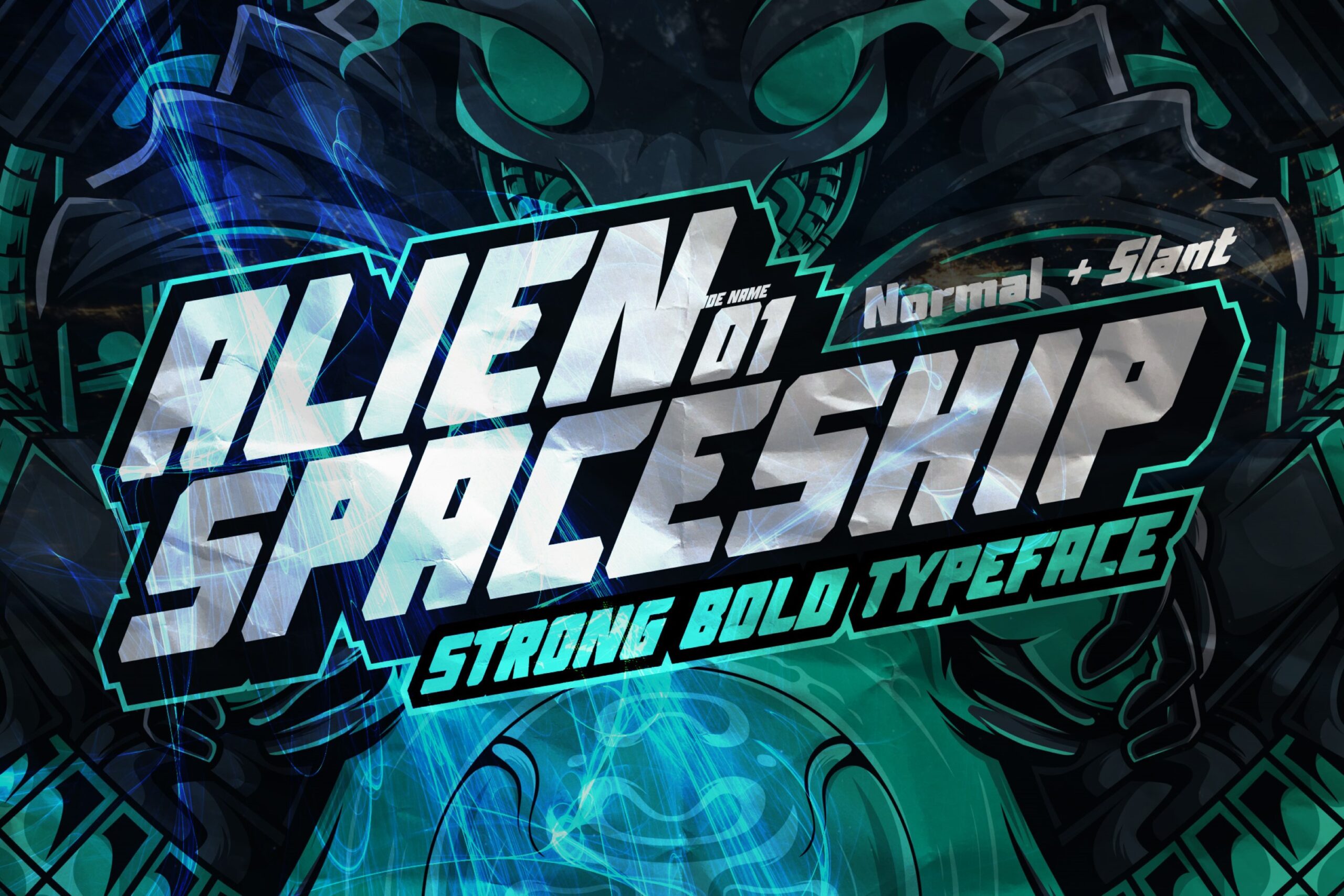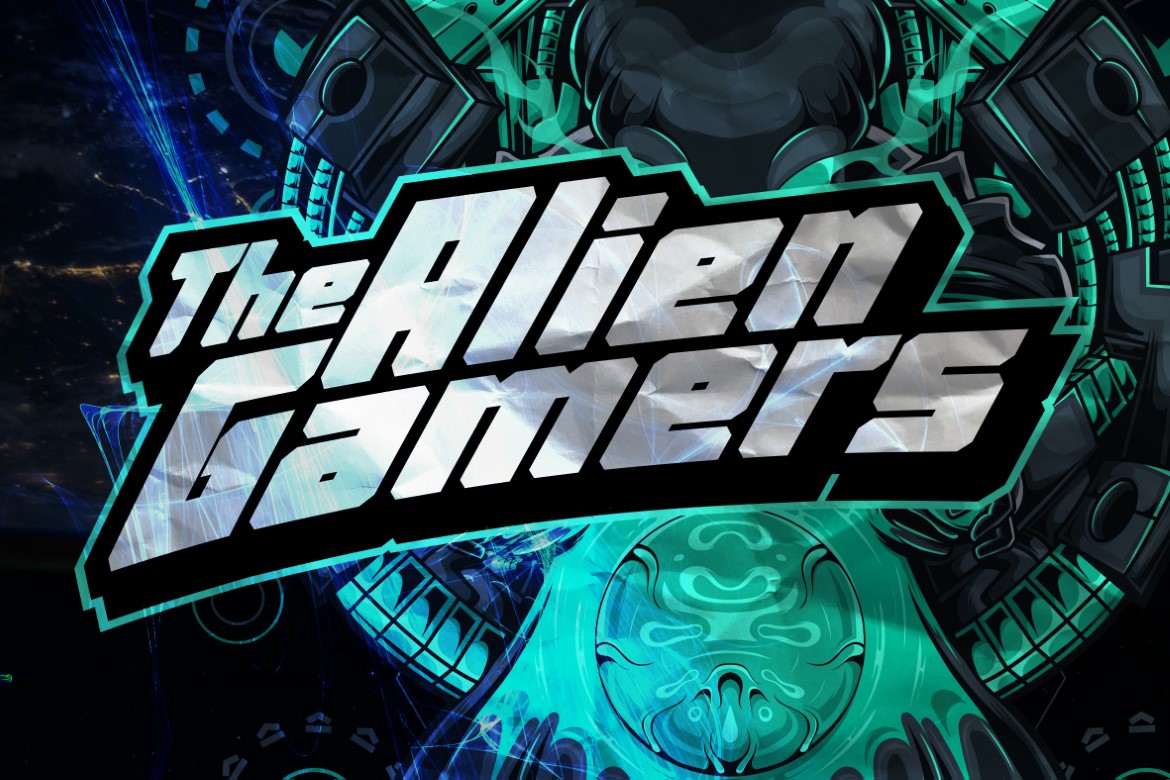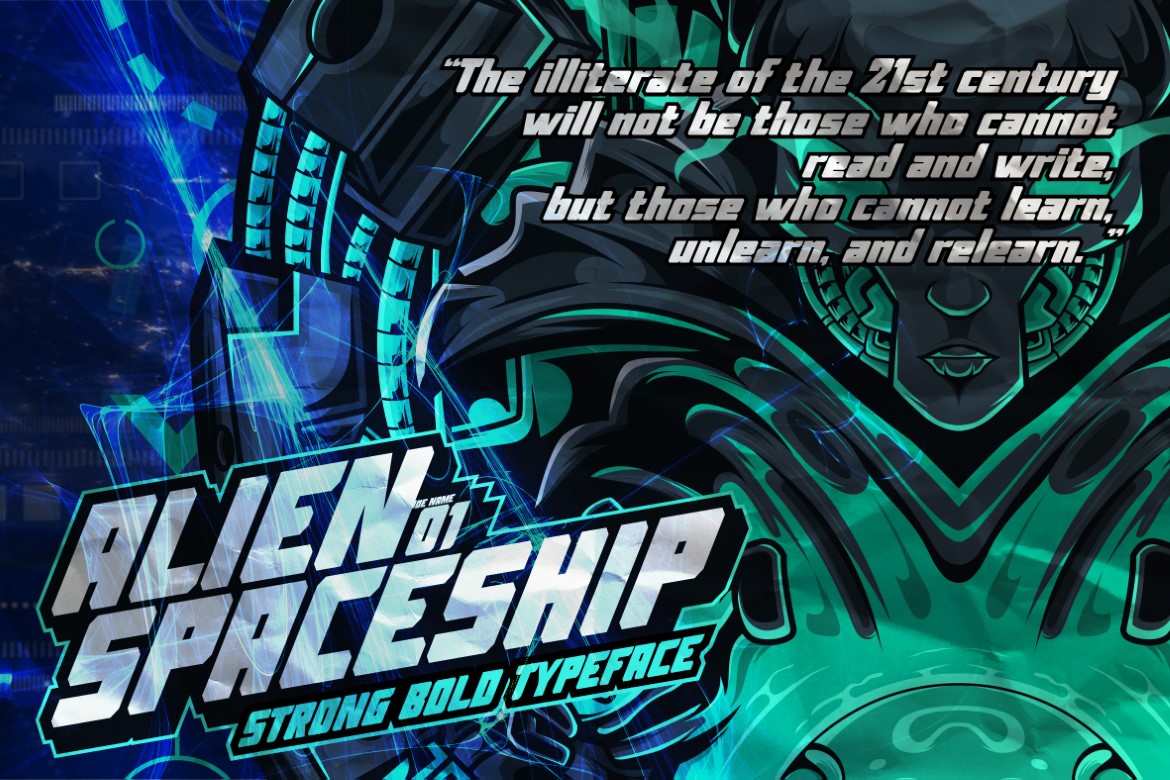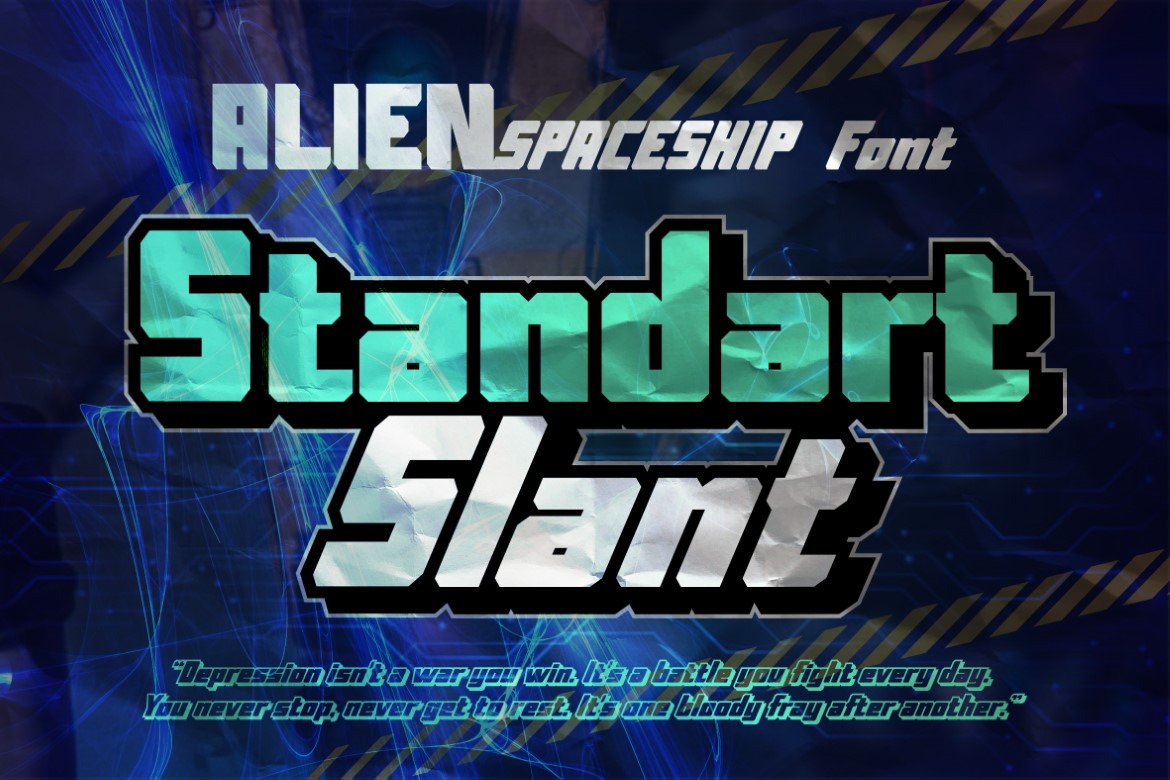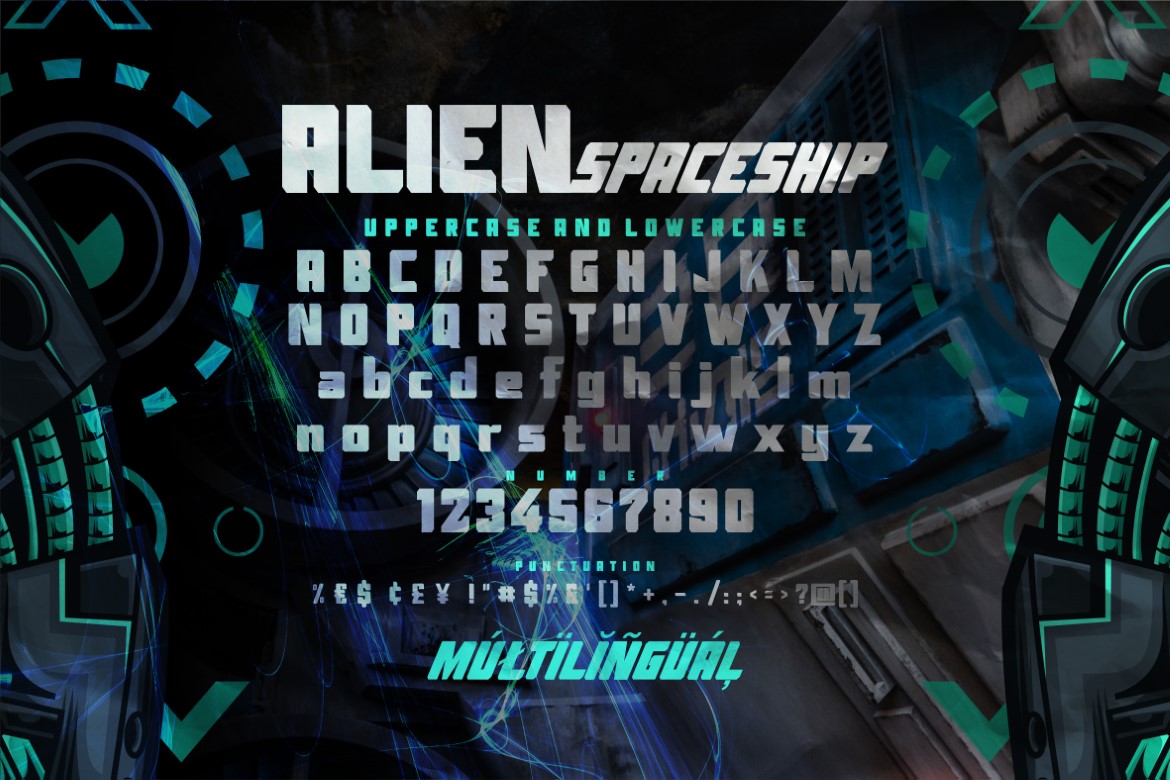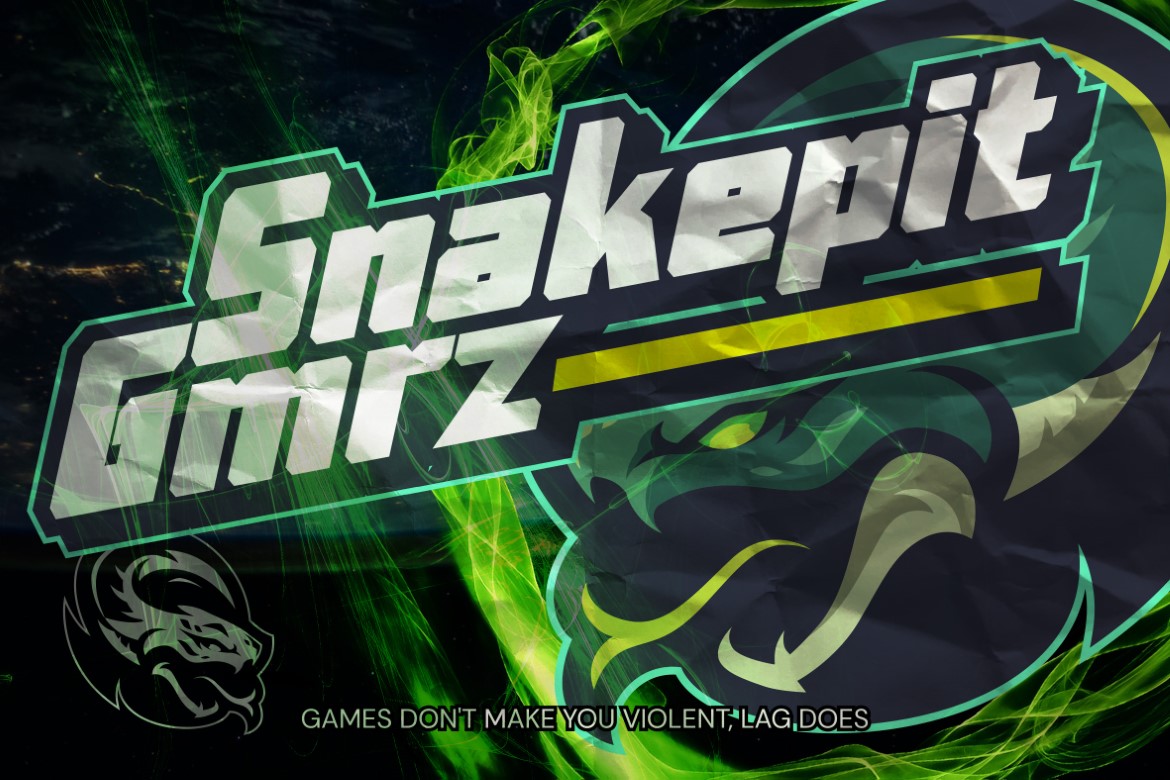
Alien Spaceship – Strong Bold Typeface Font is an Authentic Font that is written casually and quickly.
That is why Alien Spaceship has a authentic, display and strong characteristic more natural look.
Alien Spaceship Perfect for designs, branding projects, Logo design,Quotes product packaging and another Project that require cool strong font.